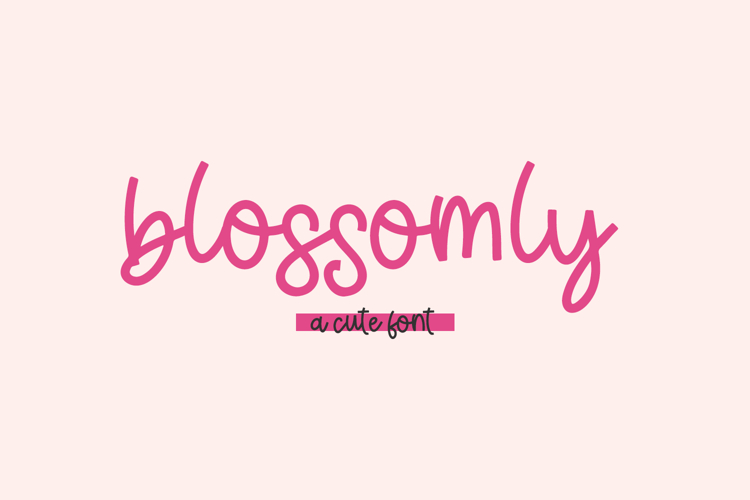
Introducing Blossomly, a bouncy, chunky script font with delicately squared off ends.
Blossomly is best for:
- feminine, crafty projects with your Cricut or Silhouette machine, or your SVG design business
- whimsical farmhouse decor and crafts
- website design + website accents, blog design
- feminine graphic tee shirt design & other apparel
- 9 ligatures - ad, dd, eg, hd, hg, id, ss, tt, zz